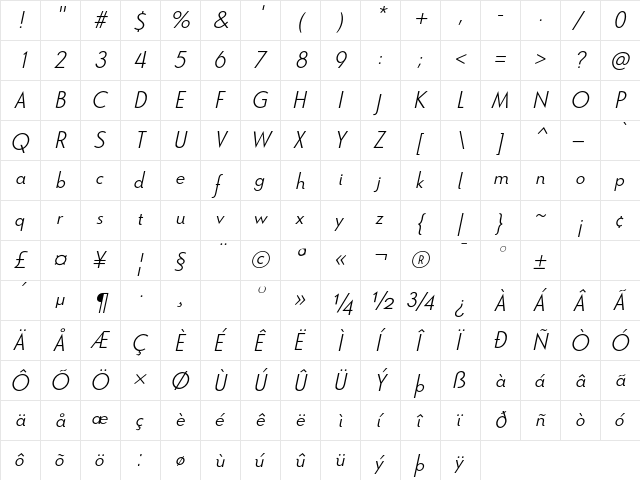
Le Havre Light Italic Font Preview
Design Context for Le Havre Light Italic Typeface
Le Havre Light Italic offers clean, dependable letterforms without strong stylistic allegiance, making it a practical choice for designers who need flexibility. Its italic angle brings a sense of urgency and motion to the letterforms. Its slender proportions lend an understated elegance to any composition.
Pro Tip: Try Le Havre Light Italic for annotation and caption copy alongside an upright companion — the contrast in angle creates a dynamic but ordered typographic system.